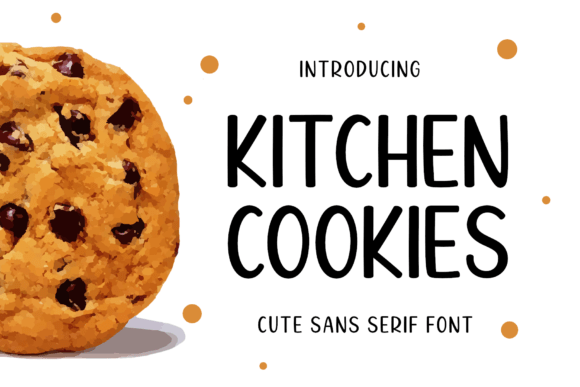
Are you tired of using the same old fonts for your design projects? Want to add a touch of cuteness and quirkiness to your designs? Look no further than Kitchen Cookies Font!
This sans serif font is the perfect addition to your font collection. Created by AV Type, Kitchen Cookies has a unique and playful shape that is sure to catch the eye of anyone who sees it. Its charm and personality make it the perfect choice for a variety of design projects.
Whether you're creating posters, birthday cards, t-shirt designs, mugs, or tote bags, Kitchen Cookies is the perfect choice. Its versatility allows it to be used in a variety of handmade creations, adding a touch of whimsy and fun to anything you create.
Kitchen Cookies Font is not just cute and quirky, but it's also keyword-rich, making it the perfect choice for SEO-minded designers. Its unique shape and design make it stand out from the crowd, making your designs more captivating and engaging to your target audience.